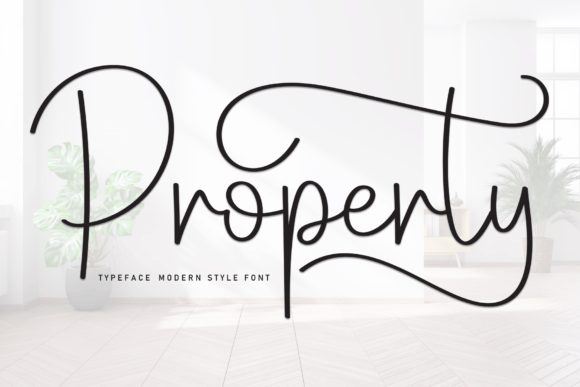
Prepare to be mesmerized by Property Font, the epitome of elegance and sophistication in the world of script fonts. Designed by the talented andikastudio, Property Font is an exquisite creation that embodies the timeless charm of handwritten artistry. With its captivating curves and delicate flourishes, this font will transport you to a realm of enchanting beauty.
Property Font is not just a font; it's an expression of your individuality and a reflection of your impeccable taste. Whether you're crafting wedding invitations that exude romance or creating thank-you cards that overflow with gratitude, Property Font will effortlessly elevate your designs to new heights. Its versatility extends to quotes, greeting cards, logos, and business cards, transforming ordinary text into captivating works of art.
Imagine your words dancing across the page, each letter a testament to your creativity and passion. Property Font's enchanting strokes will bring a touch of magic to your designs, capturing the attention of all who behold them. Whether you're a seasoned designer or a creative enthusiast, Property Font is the perfect tool to unleash your imagination and create designs that leave a lasting impression.